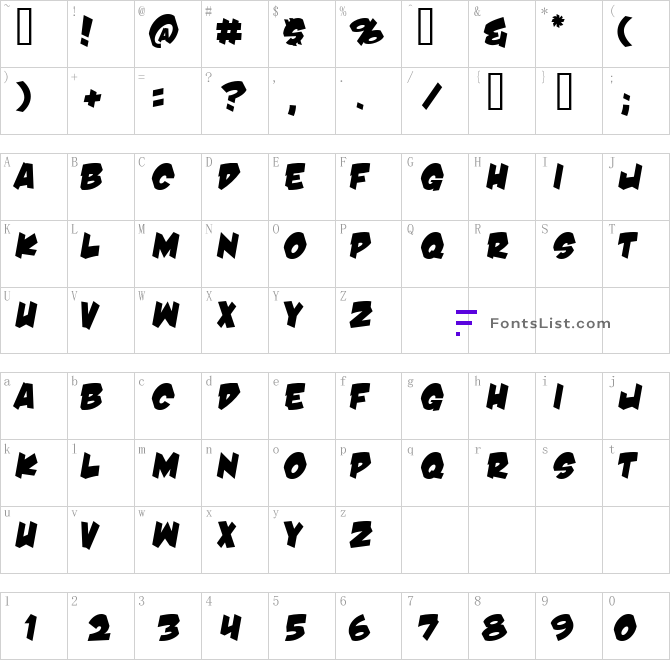
- Font Name:Damn Noisy Kids
Damn-Noisy-Kids.ttf is a very beautiful artistic font, Damn-Noisy-Kids.ttf is widely used in the design and printing of various books and pictures,Damn-Noisy-Kids.ttf has a strong visual impact,Damn-Noisy-Kids.ttf is a commonly used font in newspapers, magazines and books, and is used in posters, e-commerce Poster design, store design, logo design, font design and other fields.Damn-Noisy-Kids.